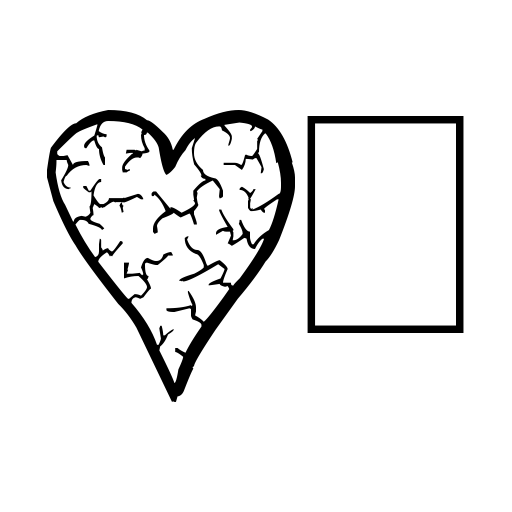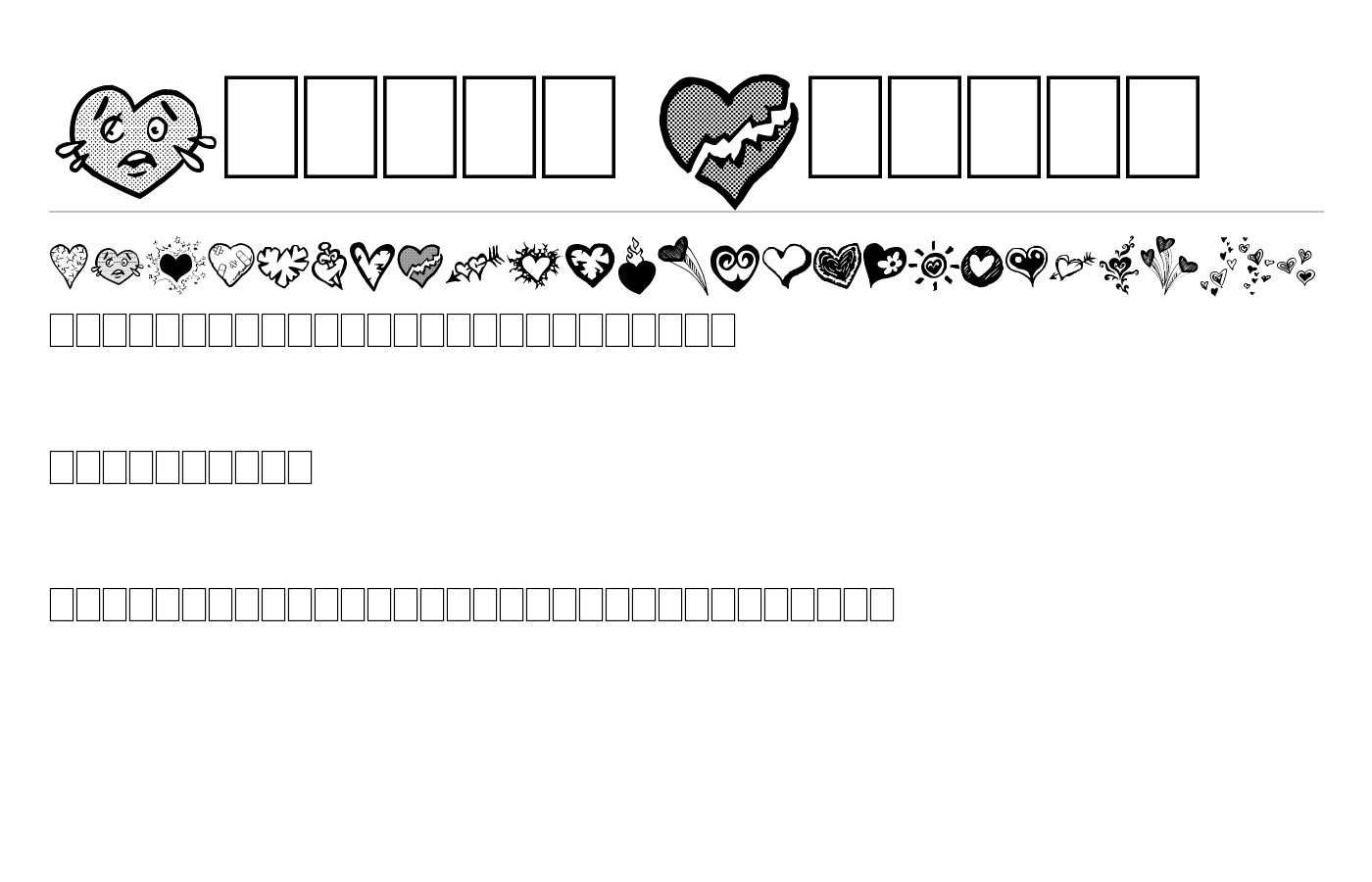
Broken Hearts Font is a playful and expressive symbol font featuring a wide range of heart-themed icons, from cute and quirky faces to intricate, decorative designs. Its bold, hand-drawn style with varied textures and details makes it perfect for creative projects that aim to convey emotion, love, or whimsy. This font works best for fun invitations, greeting cards, playful branding, and any design needing a heartfelt, artistic touch.
Broken Hearts Font
About Broken Hearts Font
| Font family | Broken Hearts Font |
| Designer | Imagex |